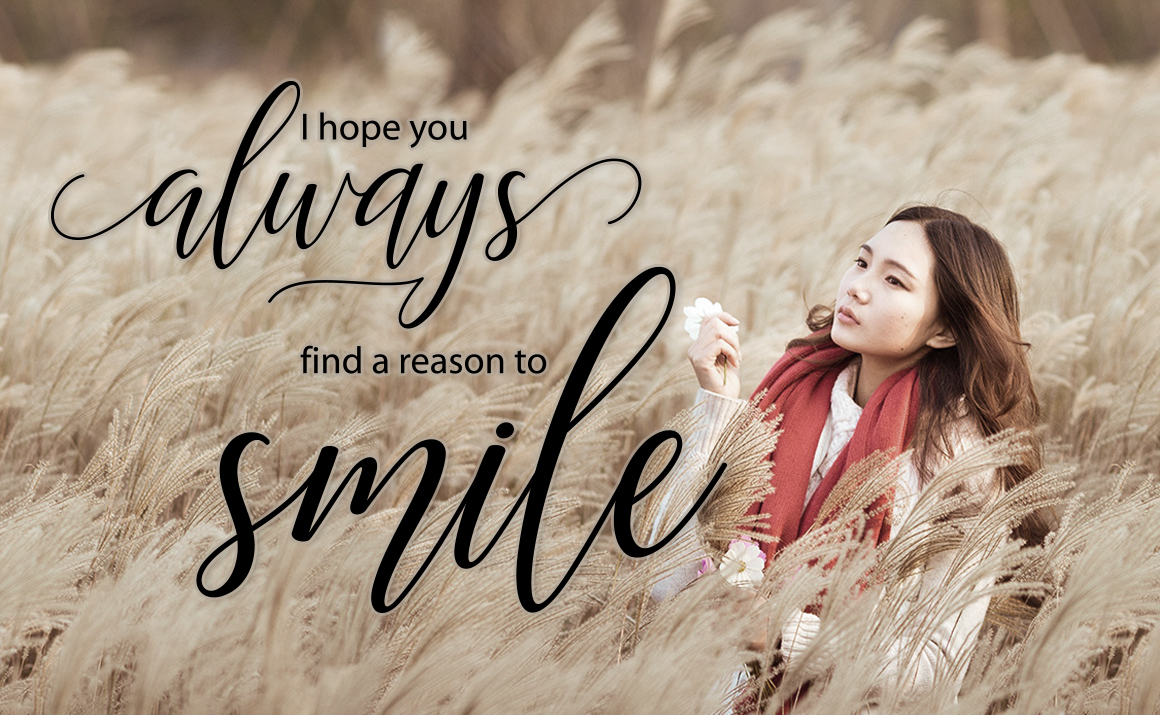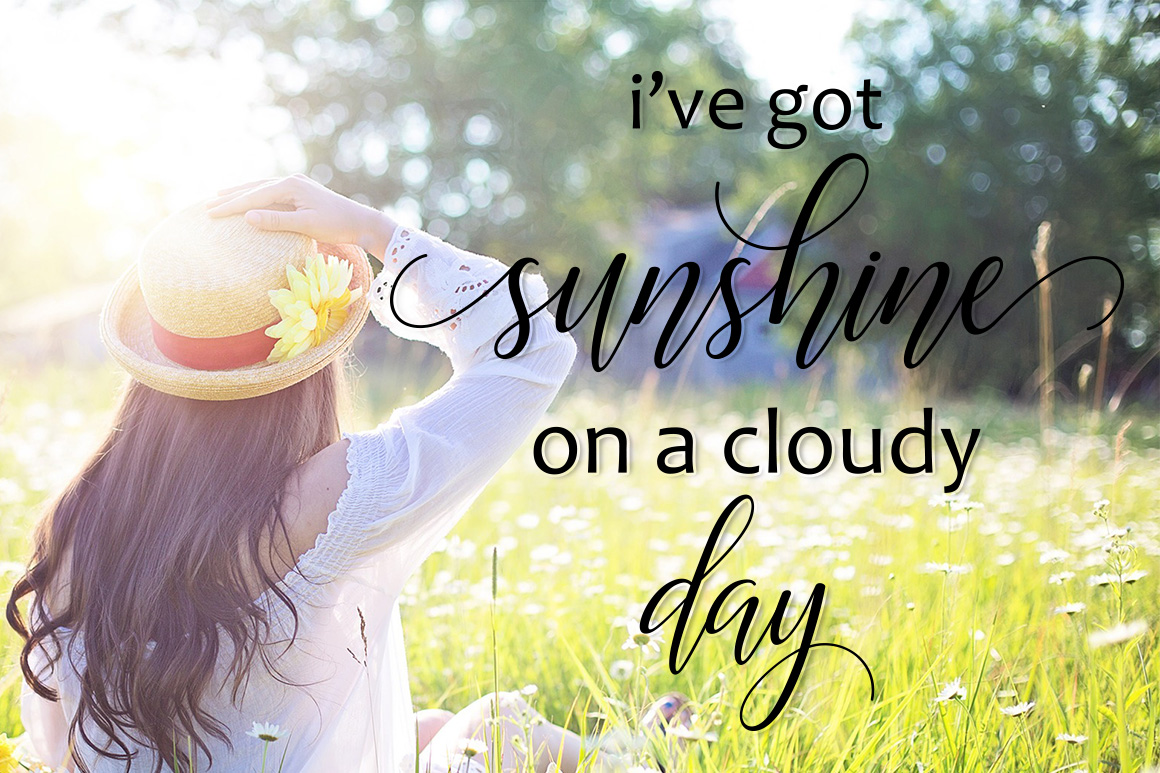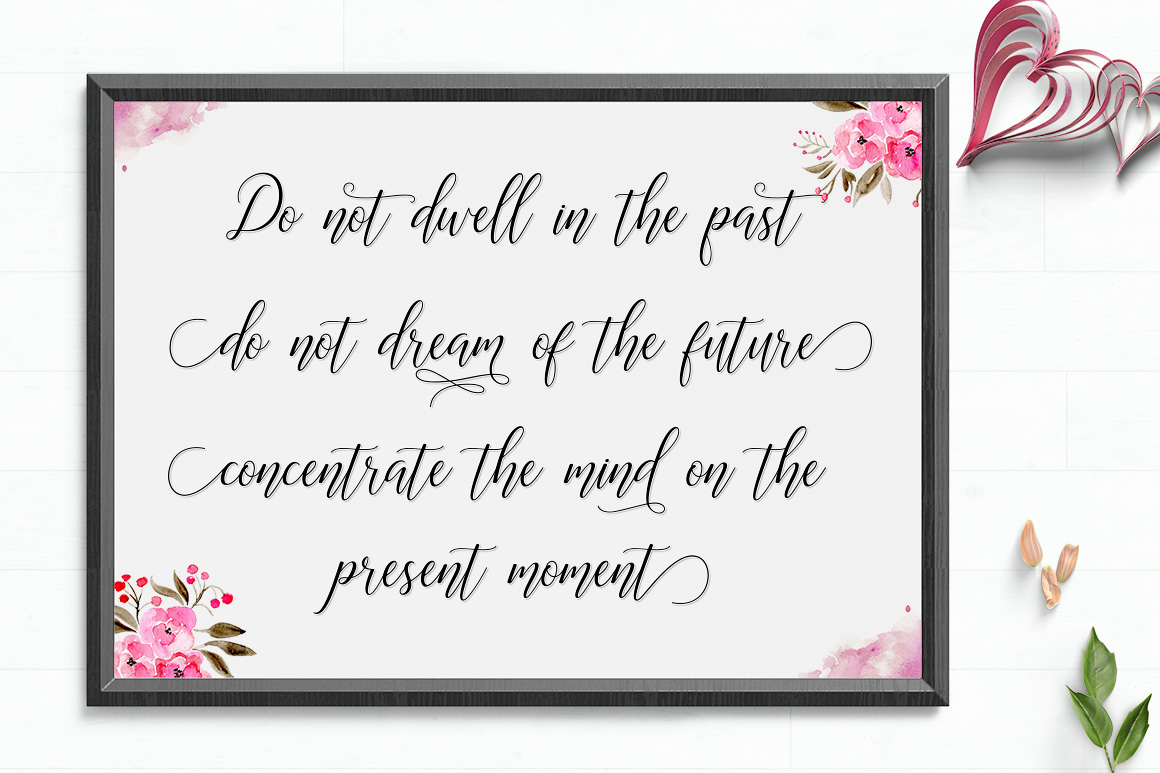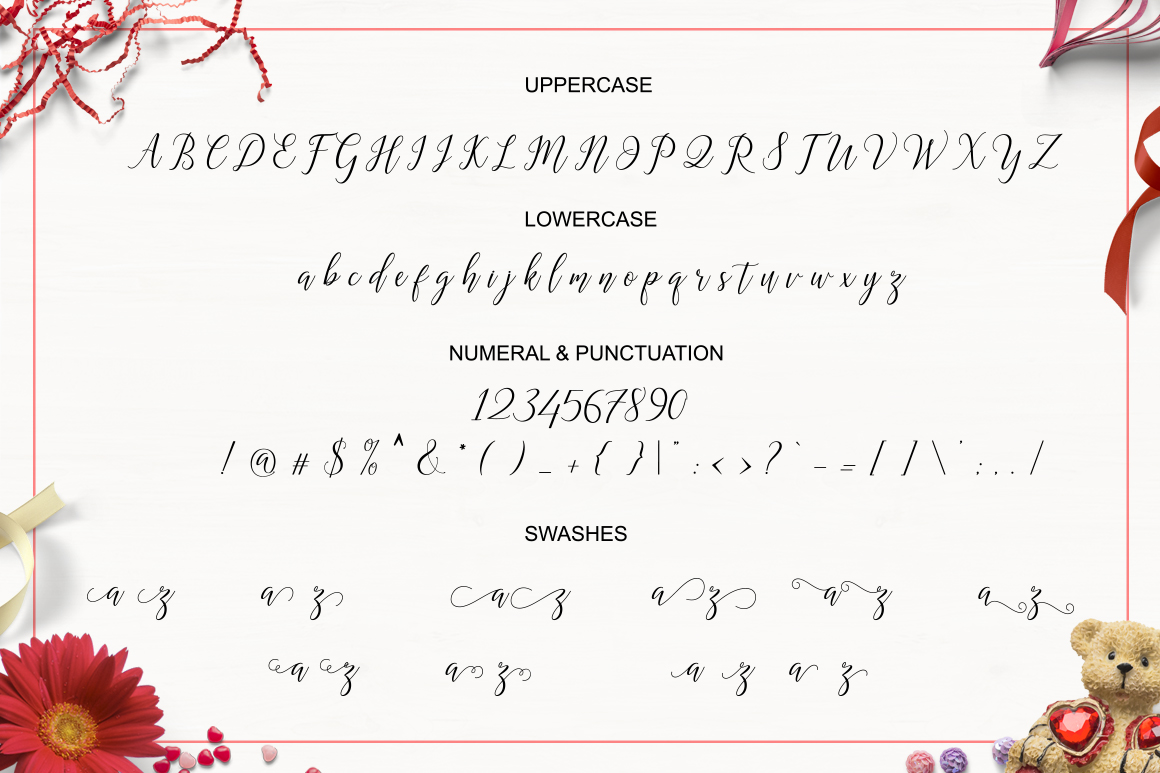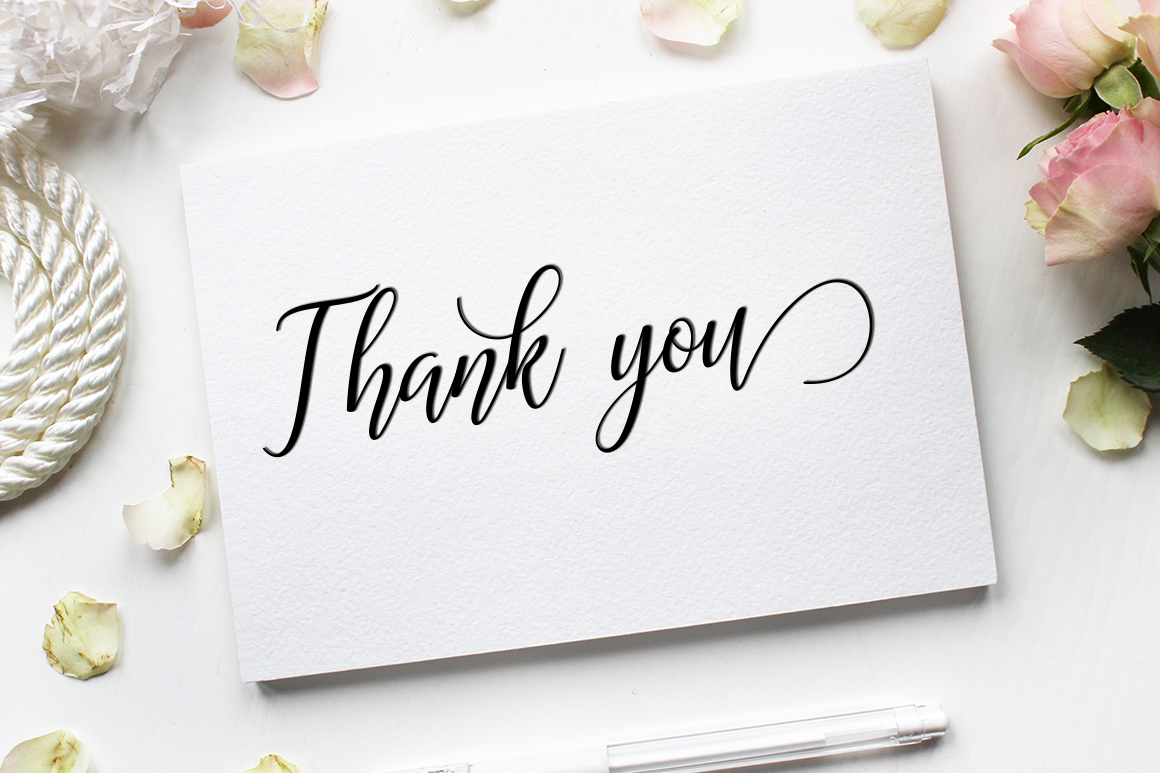
Astereiska Script Font
About Astereiska Script Font
The Astereiska Script is a fresh, fluid handmade font with a calligraphic style.
The decorative letters make for great personal designs. The font can be used for decorating wedding invites & birthday cards, creating signs or (personal) branding.
Astereiska comes with 790+ unique glyphs.